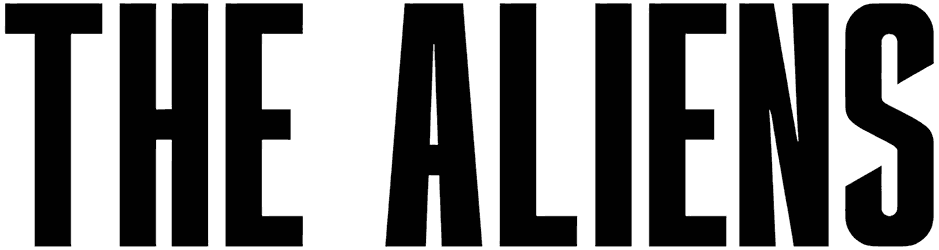
The Aliens Font
With a sans serif font like The Aliens, you can design a lot of texts and be sure they will match with it. With old style but unique, you can display any project such as headlines, webs, posters, and others. There are no lowercase letters and most of the numbers. The Aliens remain a sound choice to make your design noticeable.